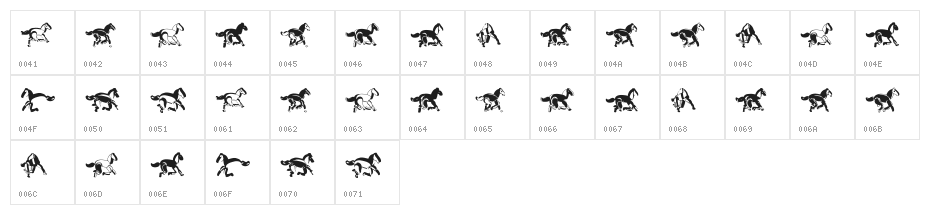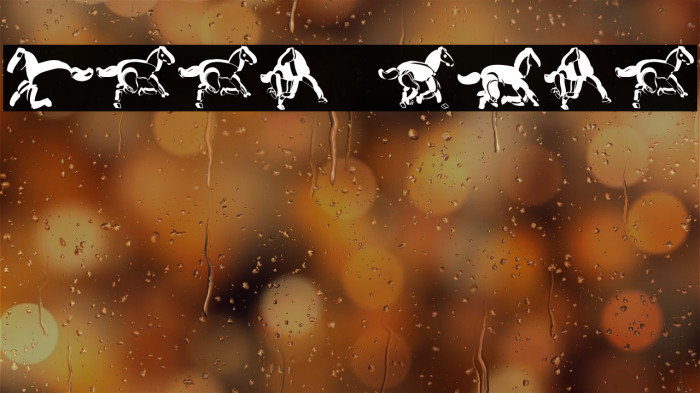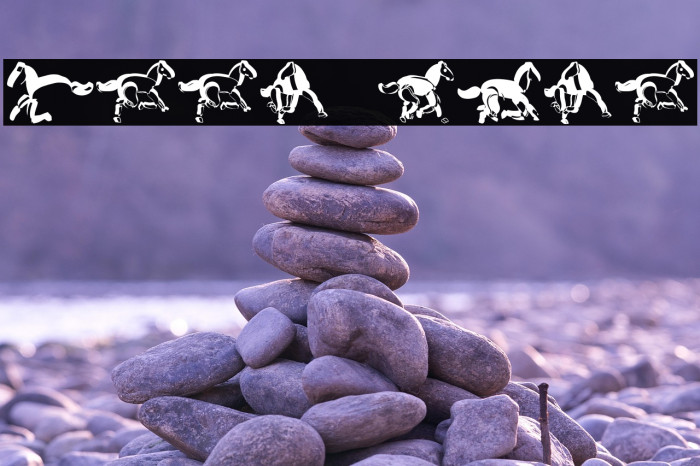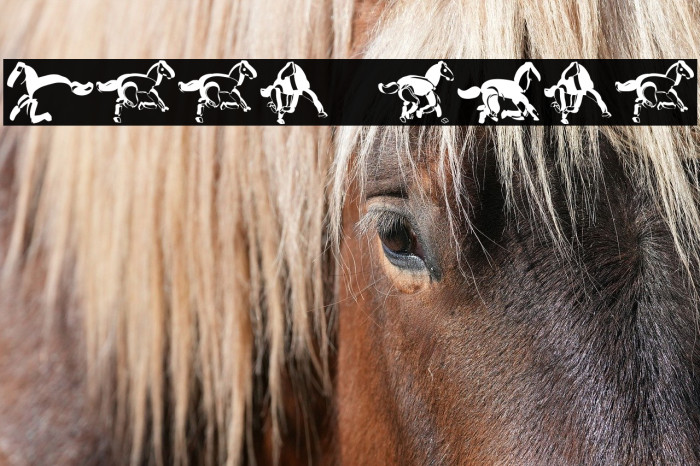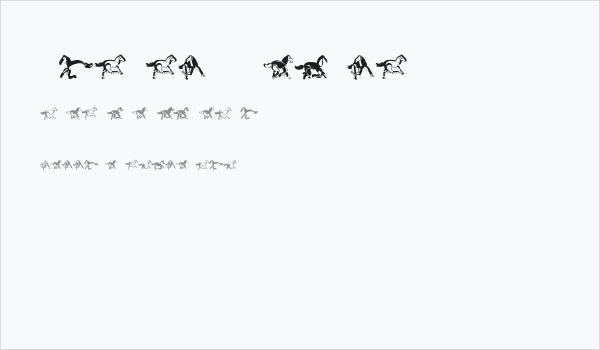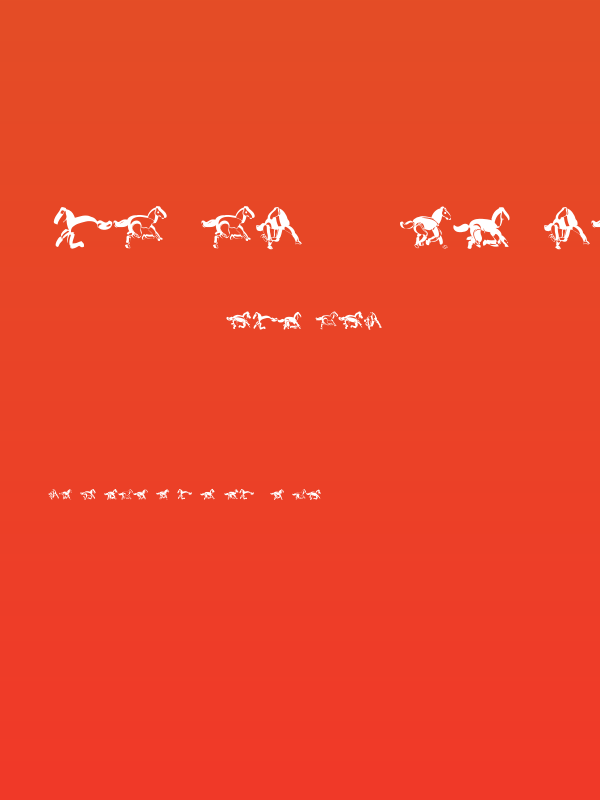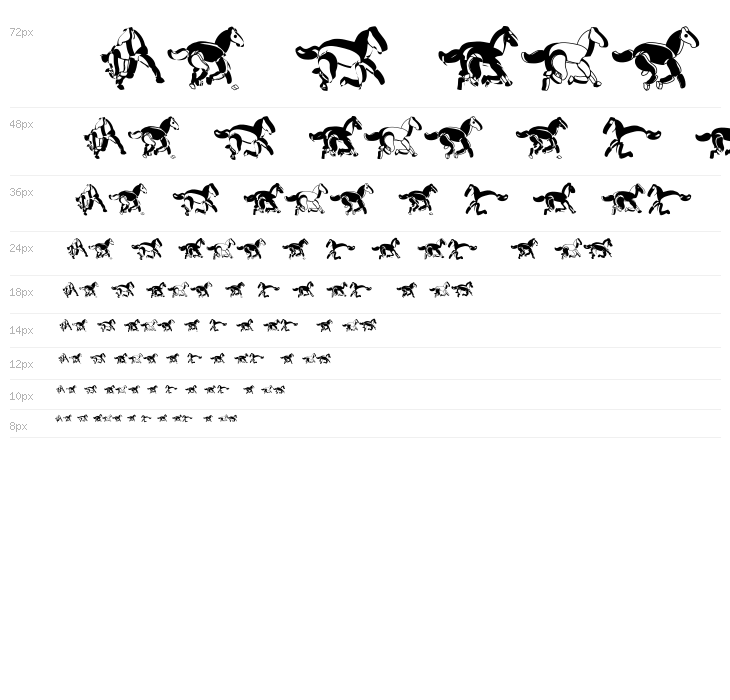
Soavaly Regular Font
Soavaly Regular Description
A decorative font composed entirely of stylized horse illustrations in various running poses, replacing traditional alphanumeric characters and symbols with expressive equine silhouettes.
| Overall Style | Decorative, Playful, Thematic |
| Use Case | Logos, Posters, Themed Headlines, Educational Graphics |
| Proposed Projects | ChildrenΓ’β¬β’s books, animal-themed posters, equestrian event branding, playful invitations, educational materials. |